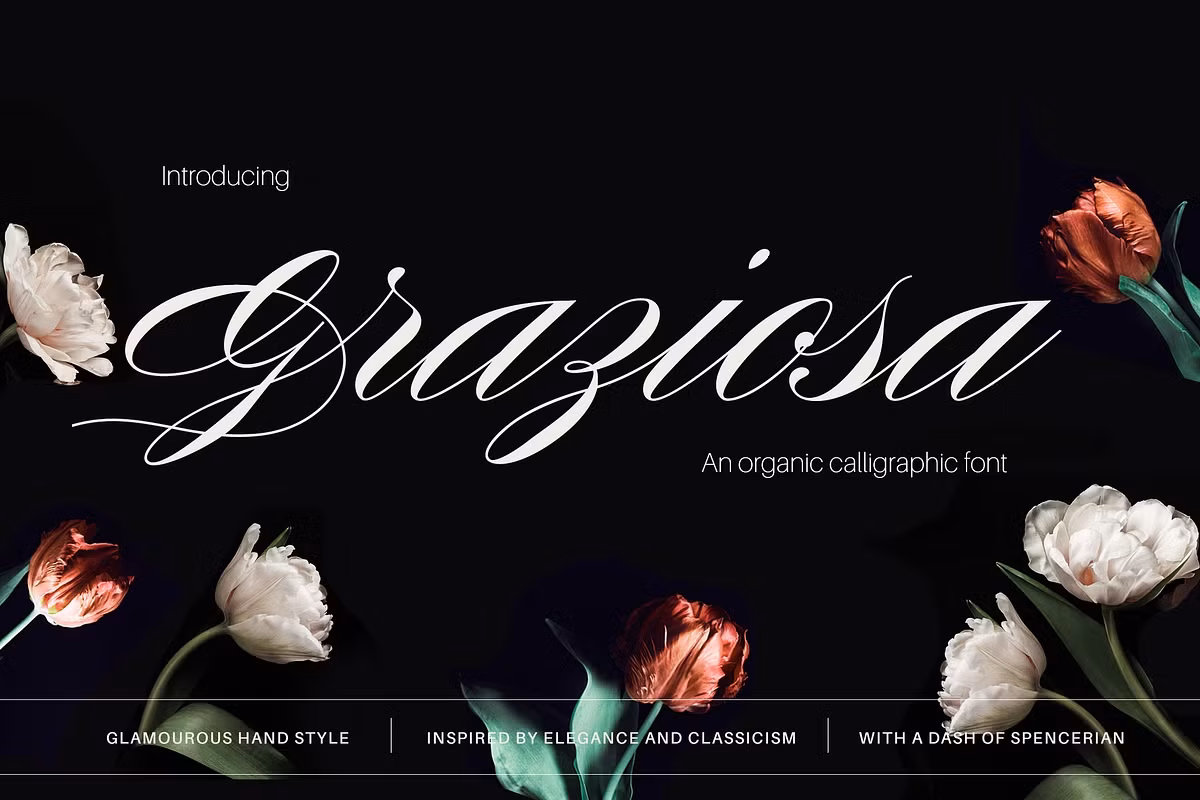
Graziosa Script Font Free Download is an elegant and flowing script typeface that embodies sophistication and charm. With its smooth curves, natural handwriting feel, and graceful strokes, this font is perfect for high-end branding, wedding invitations, personal logos, stationery, and any project that requires a refined and artistic touch.
Graziosa adds a personal, luxurious flair to your designs while maintaining readability, making it ideal for both formal and creative uses. Whether you’re working on elegant event invitations, a boutique logo, or stylish social media posts, this font will bring a beautiful, handwritten aesthetic to your work.
The font includes uppercase and lowercase letters, numerals, punctuation, and multilingual support, ensuring versatility across both print and digital platforms.